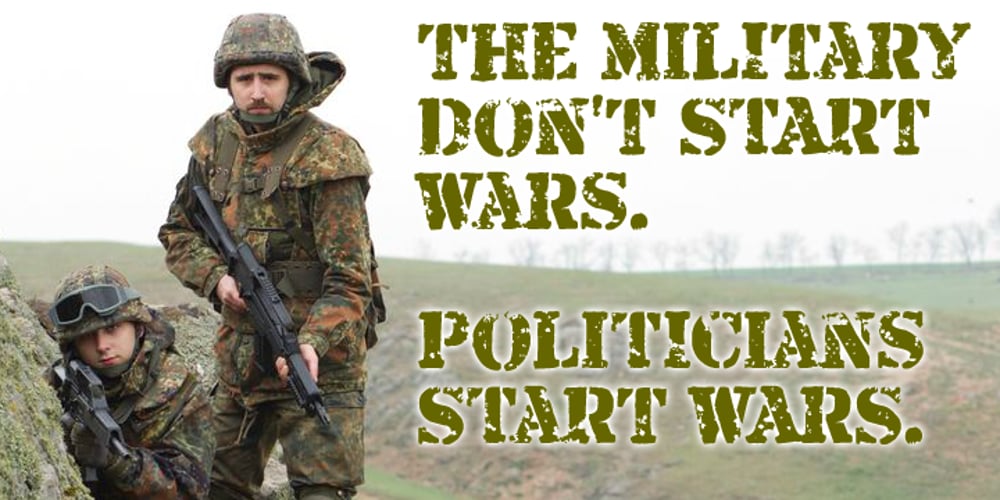
Armalite Rifle Pro Font Family was designed by Vic Fieger, Roger S. Nelsson and published by CheapProFonts. Armalite Rifle Pro contains 1 styles and family package options. Military style stencil type, badly bruised by shotgun fire, wear and tear. Now ready for action in more languages! Vic Fieger says: “The original letterforms were not the famous military stencil, but were drawn freehand then scanned into Photoshop. Next, they were altered using a series of brushes before being imported into a font. This font has been used in the Flash games Pandemic and Artillery.” ALL fonts from CheapProFonts have very extensive language support: They contain some unusual diacritic letters (some of which are contained in the Latin Extended-B Unicode block) supporting: Cornish, Filipino (Tagalog), Guarani, Luxembourgian, Malagasy, Romanian, Ulithian and Welsh. They also contain all glyphs in the Latin Extended-A Unicode block (which among others cover the Central European and Baltic areas) supporting: Afrikaans, Belarusian (Lacinka), Bosnian, Catalan, Chichewa, Croatian, Czech, Dutch, Esperanto, Greenlandic, Hungarian, Kashubian, Kurdish (Kurmanji), Latvian, Lithuanian, Maltese, Maori, Polish, Saami (Inari), Saami (North), Serbian (latin), Slovak(ian), Slovene, Sorbian (Lower), Sorbian (Upper), Turkish and Turkmen. And they of course contain all the usual “Western” glyphs supporting: Albanian, Basque, Breton, Chamorro, Danish, Estonian, Faroese, Finnish, French, Frisian, Galican, German, Icelandic, Indonesian, Irish (Gaelic), Italian, Northern Sotho, Norwegian, Occitan, Portuguese, Rhaeto-Romance, Sami (Lule), Sami (South), Scots (Gaelic), Spanish, Swedish, Tswana, Walloon and Yapese.